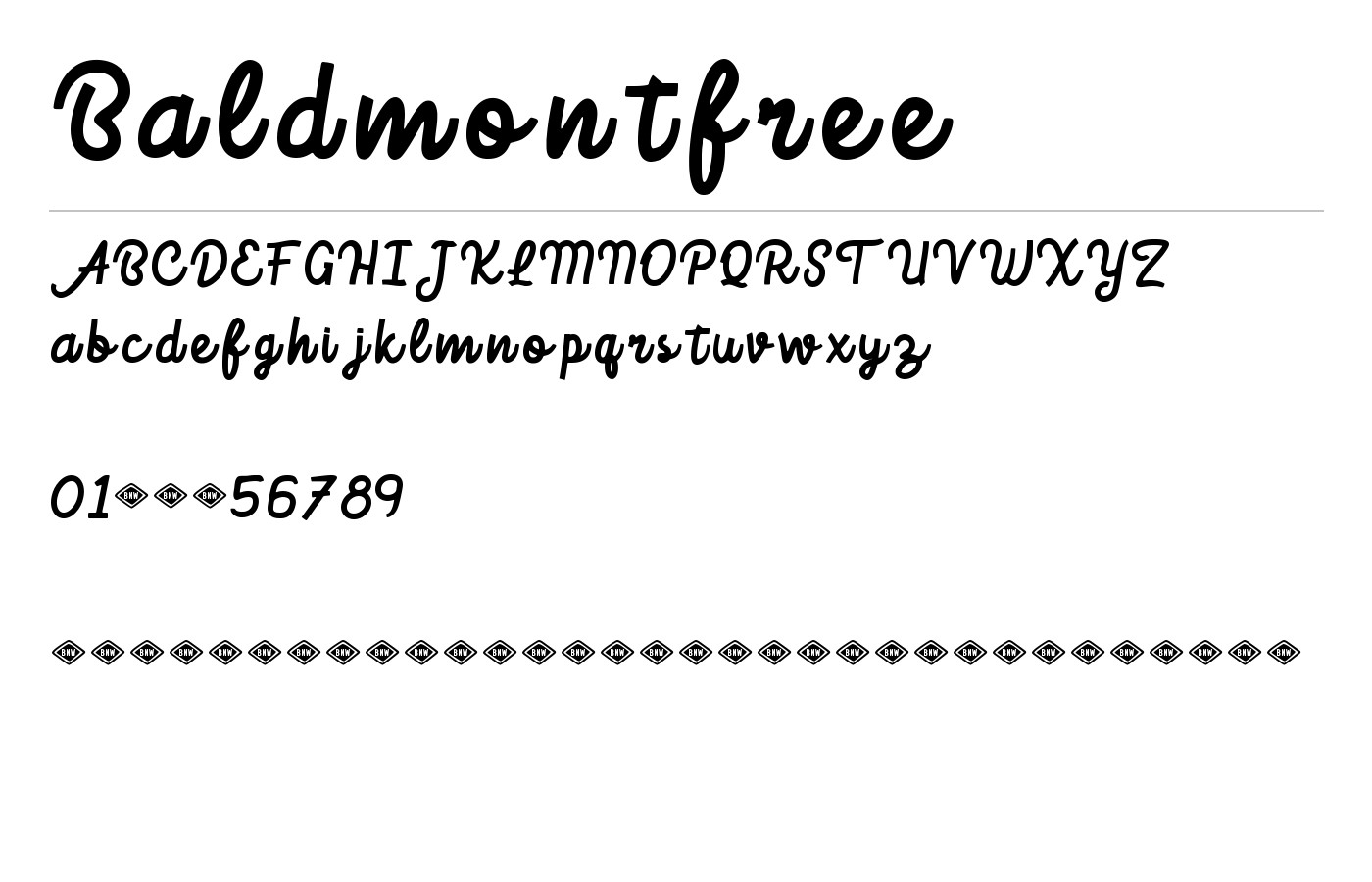
Baldmontfree is a playful and charming script font with a casual, handwritten feel, featuring medium weight strokes and smooth, rounded curves. Its lively letterforms, including single-story 'a' and 'g', and distinctive, slightly slanted style make it perfect for informal branding, invitations, and creative projects that require a friendly yet stylish touch. This font works well for headlines and logos where a warm, approachable personality is desired.
Baldmontfree Font